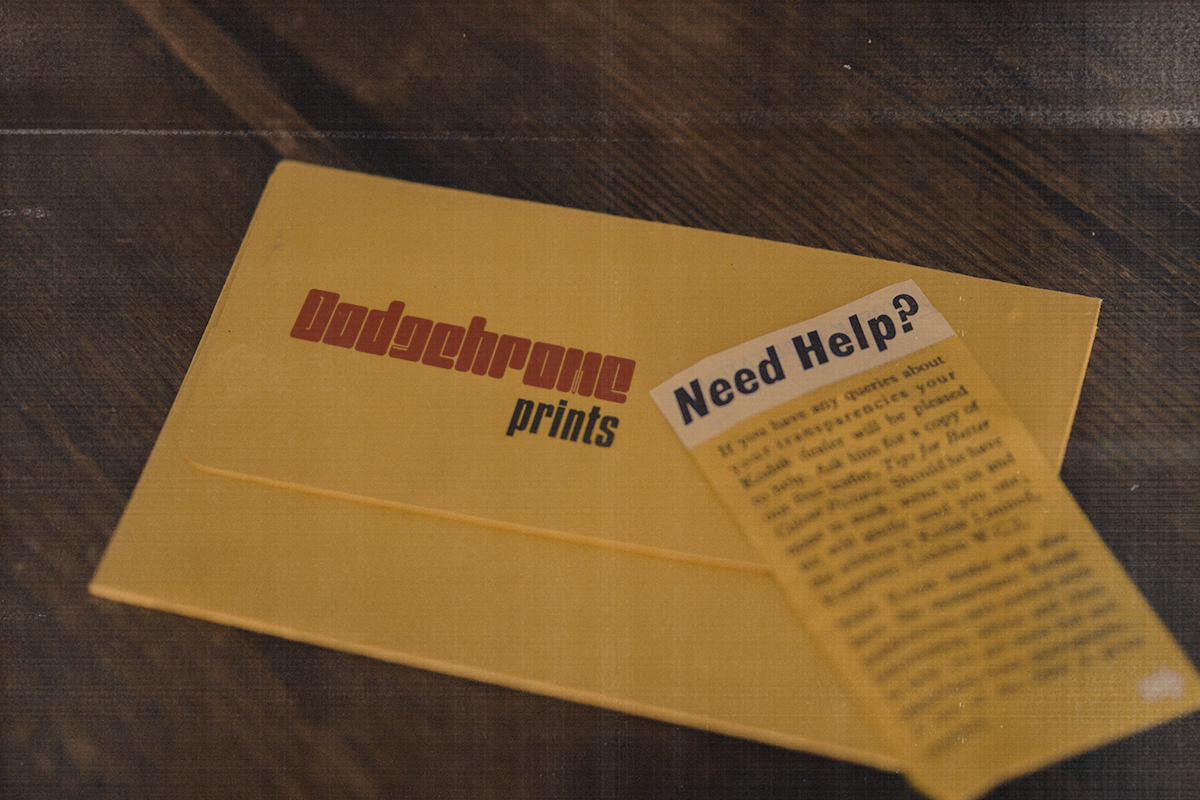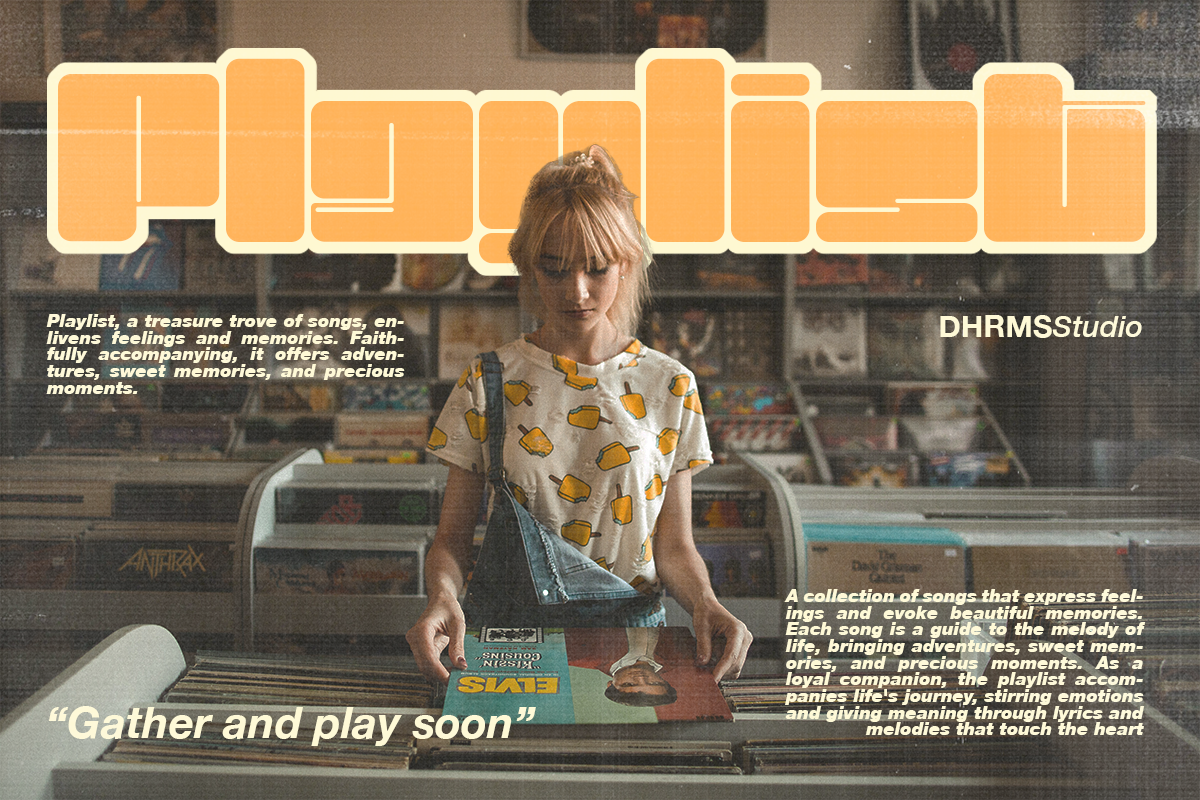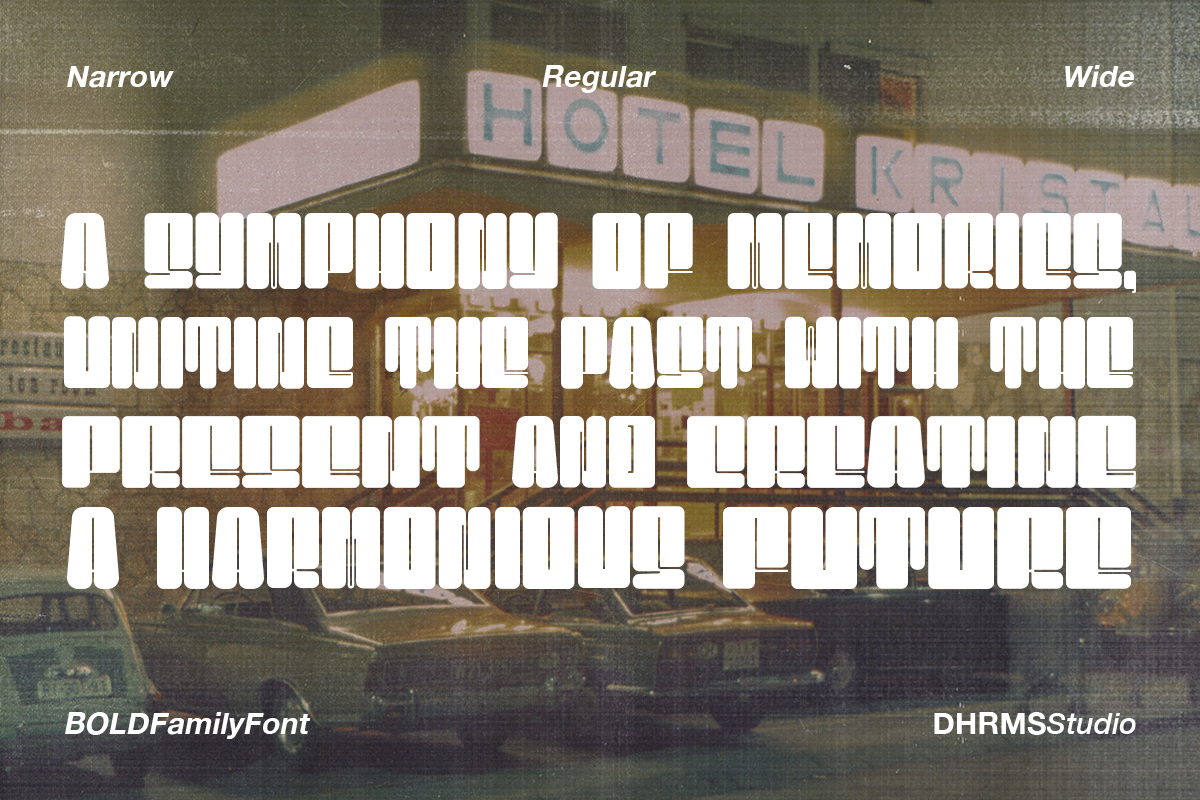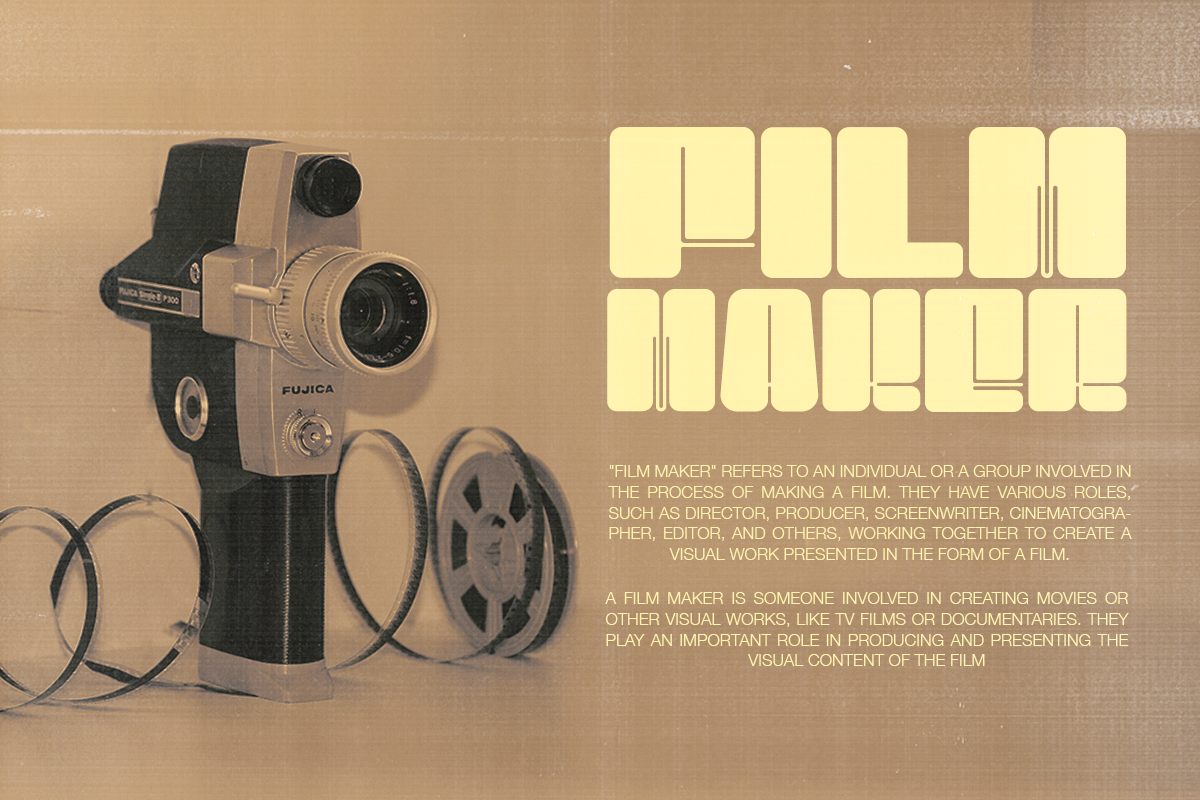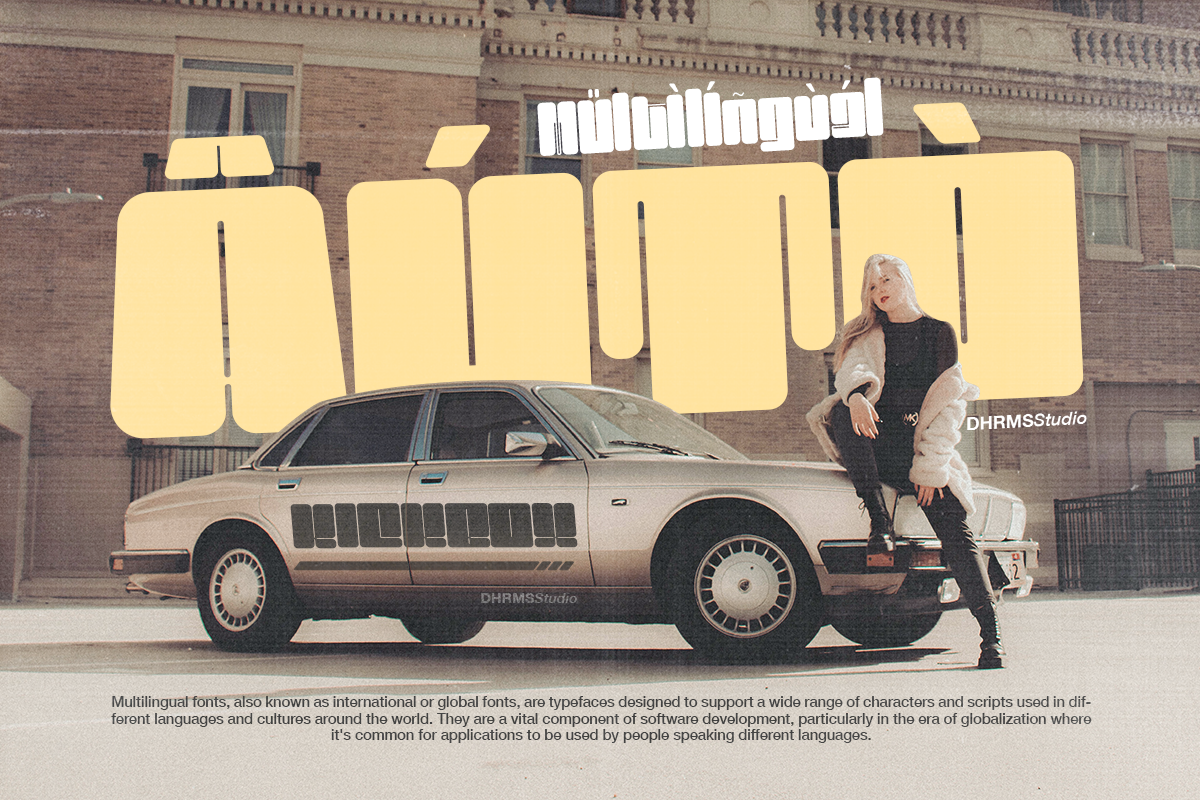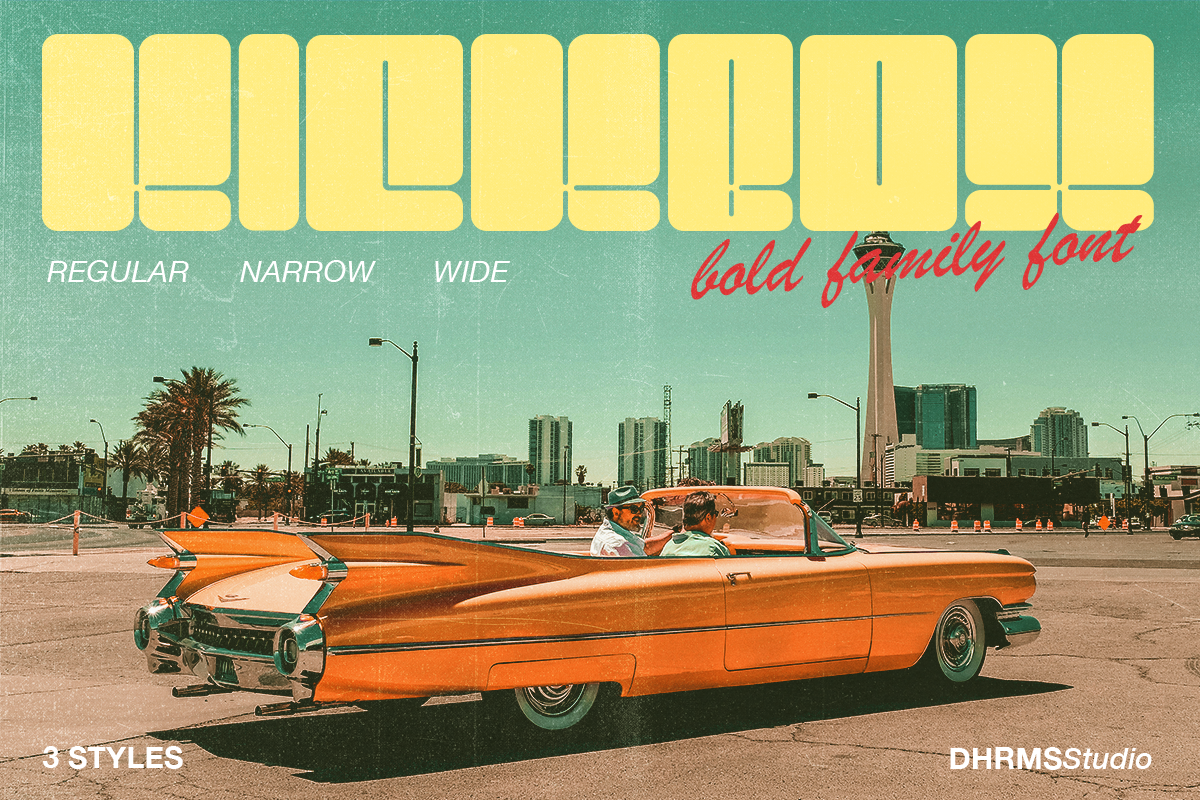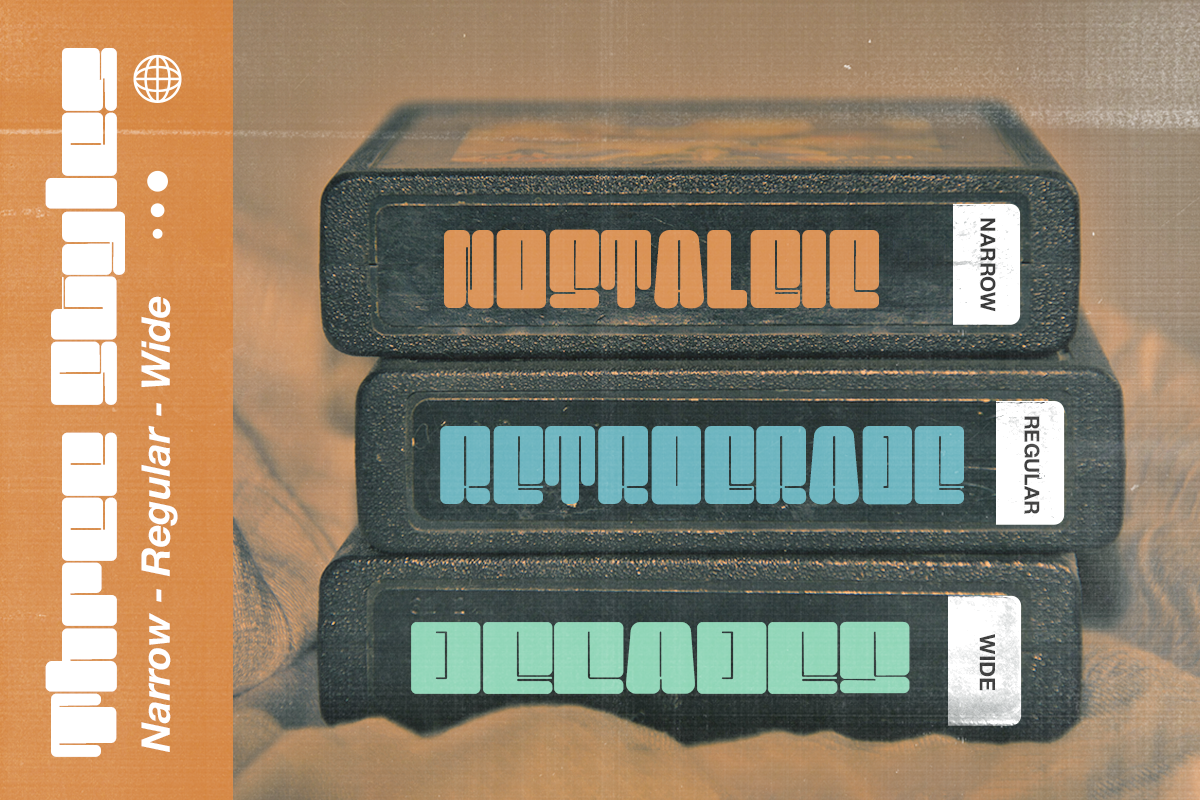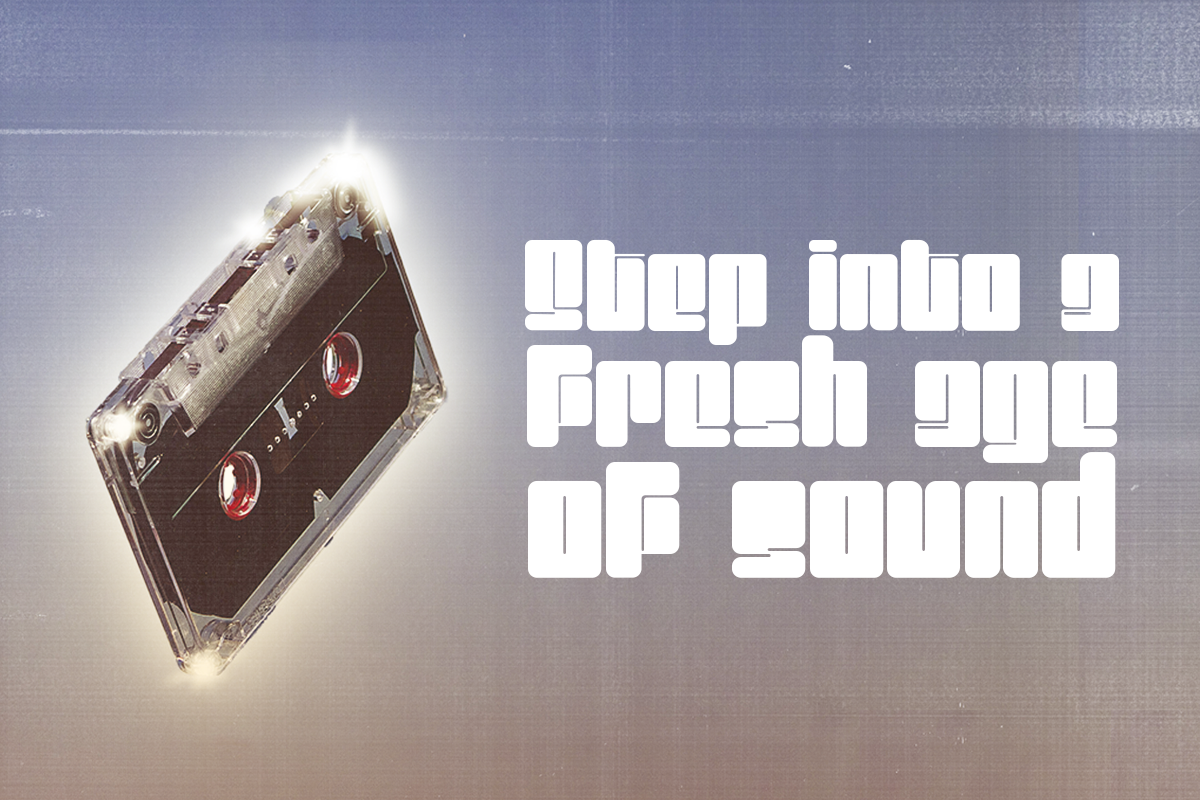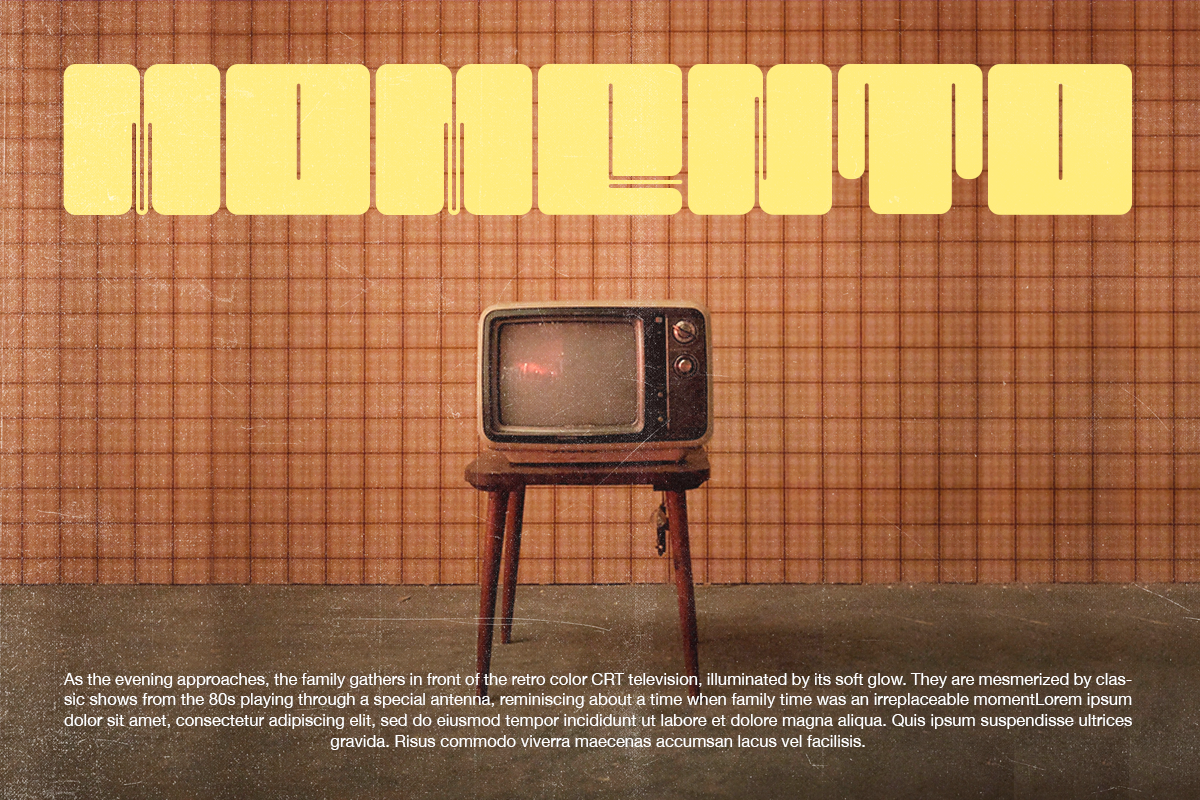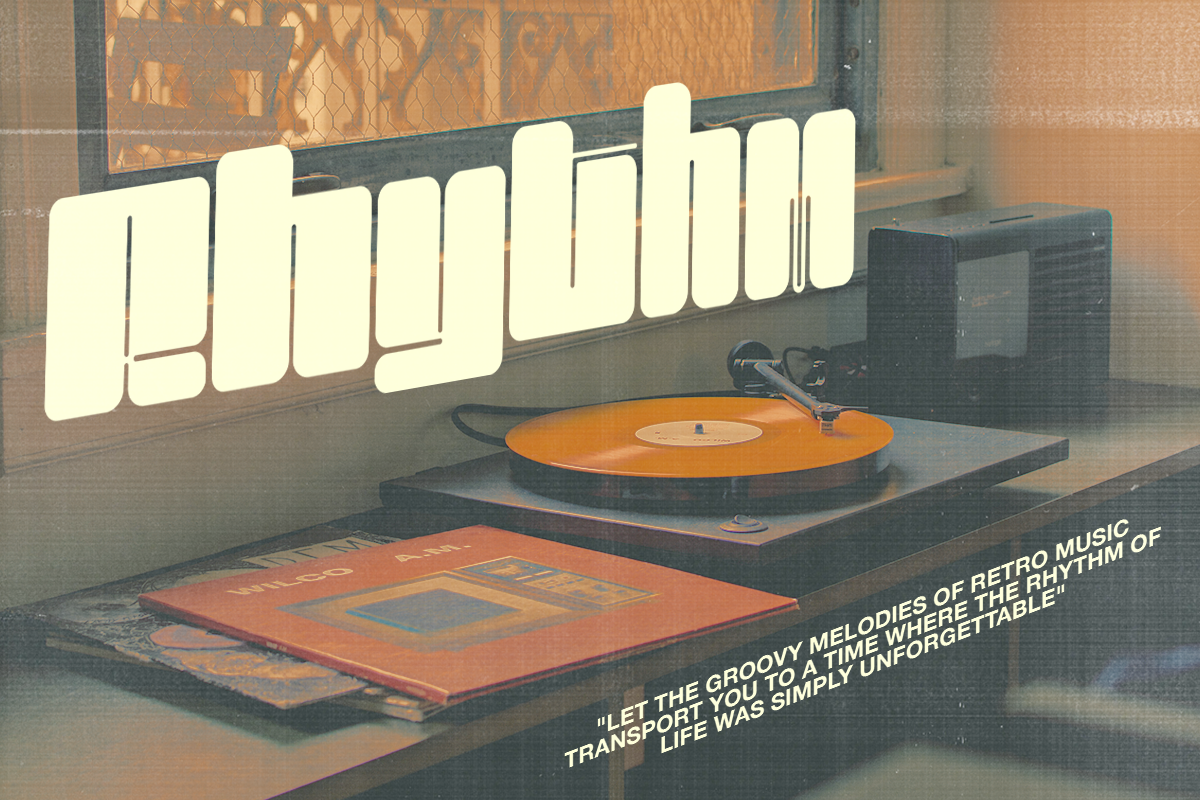
Kickbox - Bold Family Typeface
Introducing KICKBOX Fonts - Unleash the Power of Nostalgia and Captivate Pop Culture, Lifestyle, and Music and Film Branding
Looking to infuse your brand with a burst of retro charm and a dash of pop culture? Say hello to our KICKBOX Fonts! Designed with 3 styles: Narrow, Regular, Wide to make your brand stand out in the realms of pop culture, lifestyle, music, and film branding. These fonts are an absolute game-changer.
KICKBOX transports you to the golden era of the past, evoking a sense of nostalgia that resonates with pop culture enthusiasts. Seamlessly blending boldness and authenticity, they captivate the hearts of your audience, adding a unique and irresistible touch to your brand identity.
KICKBOX has 3 widths on each type: Narrow - Regular - Wide so can be perfect for any retro project like logotype, branding, title, packaging, and many more
- Has 3 Variable: Narrow - Regular - Wide
- Unique Letterforms